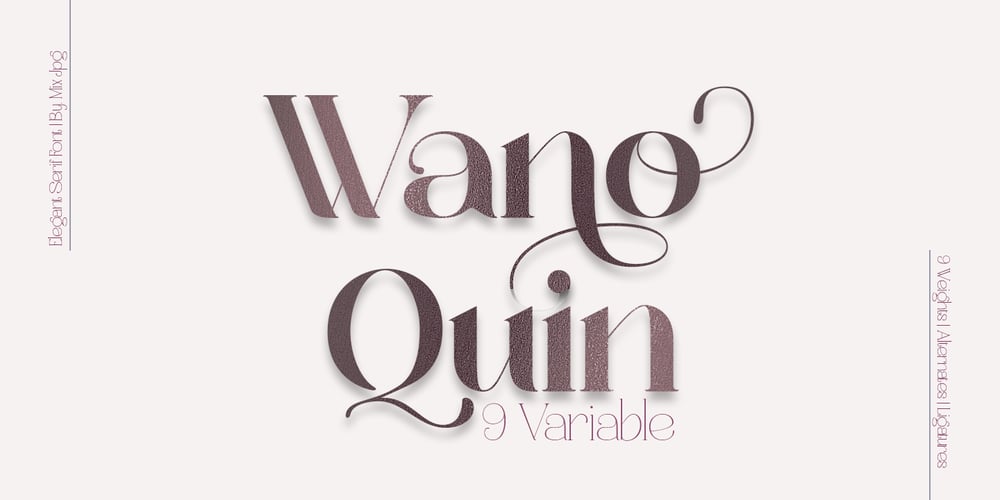
Wano Quin
Wano Quin font
Wano Quin Font Family was designed by Mix Jpg and published by MIX.Jpg. Wano Quin contains 9 styles and family package options. Wano Quin | Beautiful and Elegant Serif FontWano Quin font is a beautiful and stylish font family that offers many elegant serif, classic and elegant style for poster design, magazines, beauty branding with a flower-shaped asterisk glyph suitable for your beautiful and elegant design conceptWano Quin | Beautiful and Elegant Serif Font family with alternates that you can combine to get curves and beautiful shapes just in seconds. Play with the ornaments to create a more stunning display.Features Uppercase & Lowercase, Number & Symbol, Multi language, Ligatures, Alternates for each characters.We highly recommend using a program that supports OpenType features and Glyphs panels like many of Adobe apps and Corel Draw, so you can see and access all Glyph variations.HOW TO ACCESS ALTERNATE CHARACTERSOpen glyphs panel:-In Adobe Photoshop go to Window – glyphs-In Adobe Illustrator go to Type – glyphsThanks & Happy designing